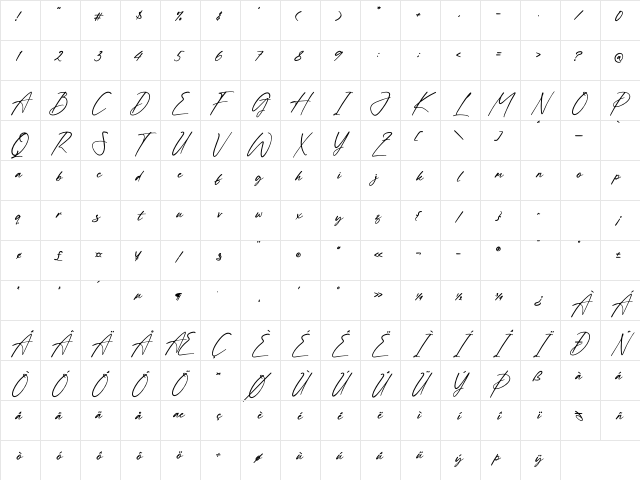
Complete Andryaton Detagheart Regular glyph index. Displaying only characters natively supported by Andryaton Detagheart Regular font.
Andryaton Detagheart is a composed and adaptable typeface that performs quietly and consistently across a wide range of design contexts.